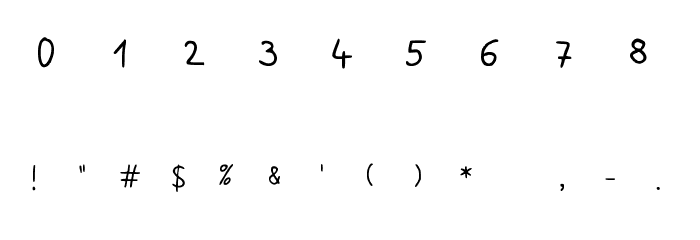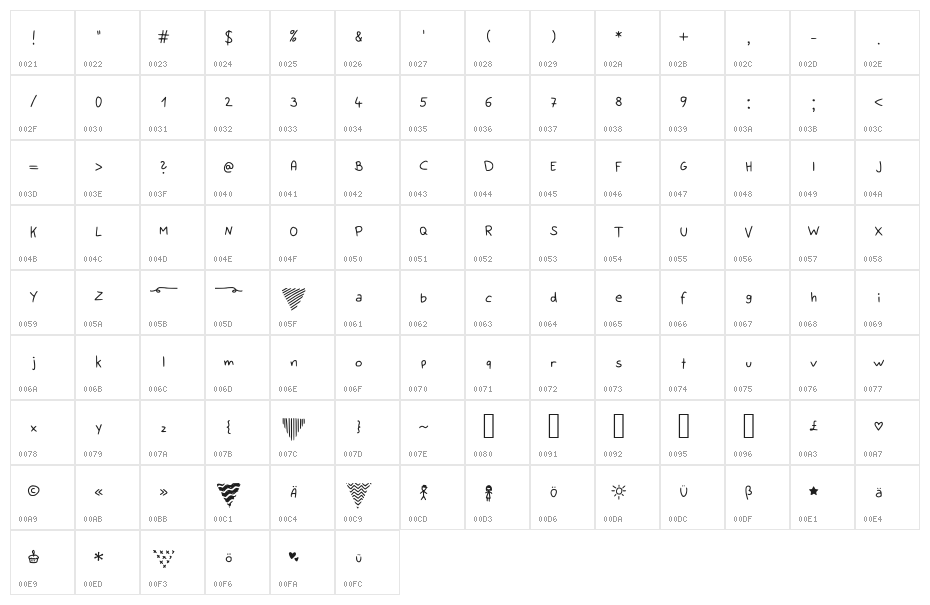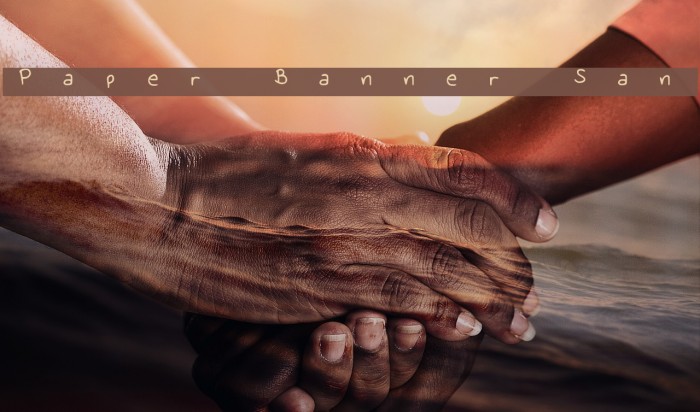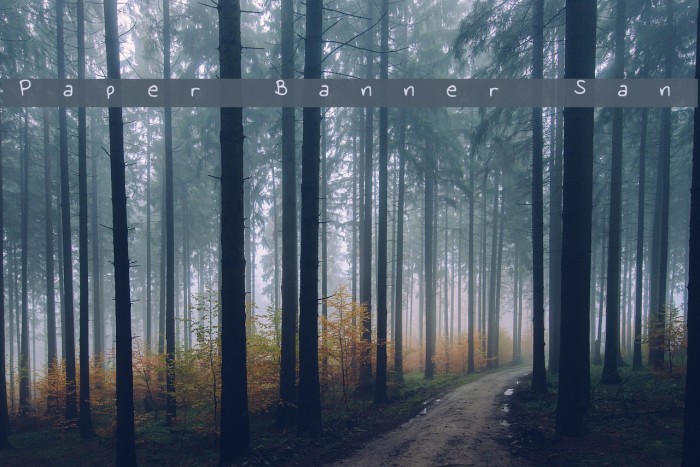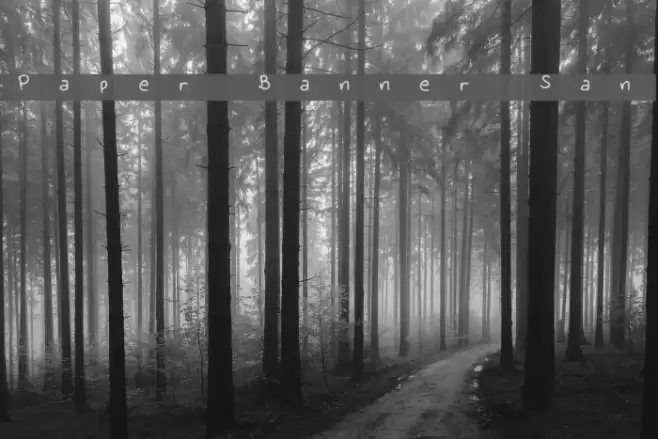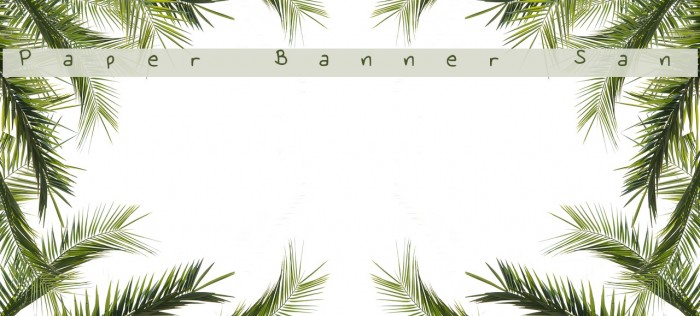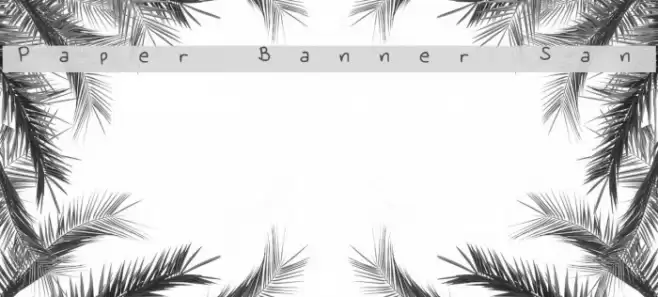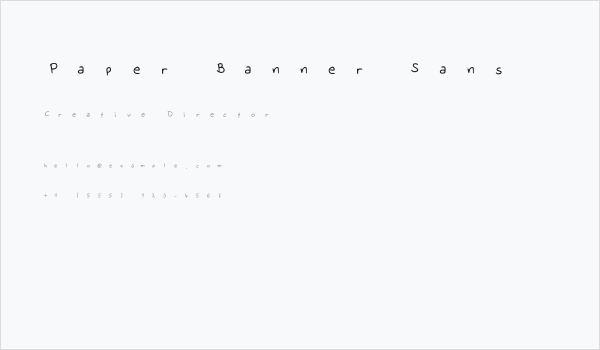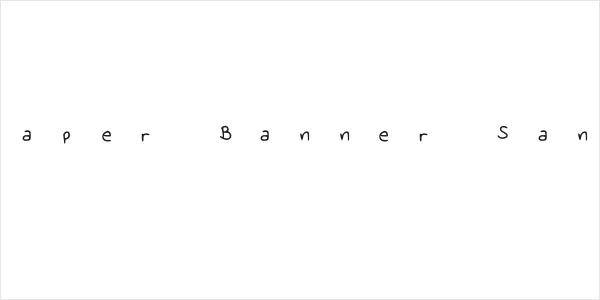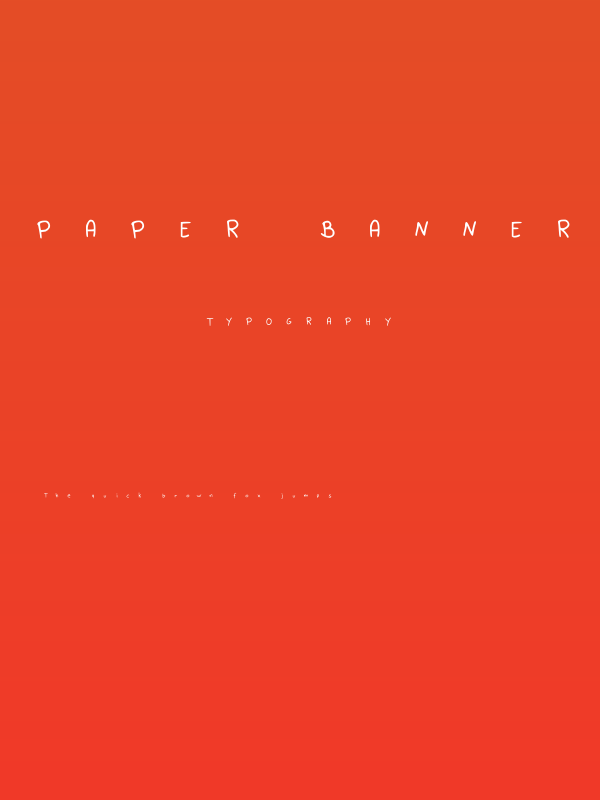
Paper Banner Sans Font
Paper Banner Sans Description
This font features a playful and informal style, characterized by its hand-drawn appearance. Each character is slightly irregular, giving it a whimsical and casual feel. The strokes are thin and consistent, with a slight wobble that adds to its charm. The uppercase and lowercase letters maintain a cohesive look, while the numbers and special characters blend seamlessly with the overall design. This font is perfect for projects that require a personal touch or a fun, lighthearted vibe.
| Proposed Projects | Ideal for greeting cards, children's books, playful branding, and casual invitations. |